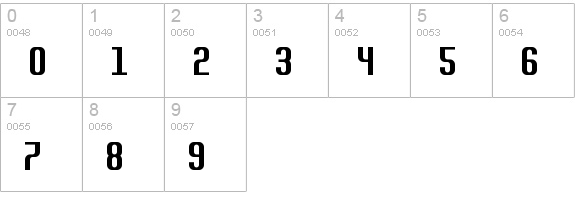
Rvaturecu Regular Font Details
Rvaturecu Regular is the standard, neutral variant in the Rvaturecu typeface family \xE2\x80\x94 well suited to general body text, paragraphs, and standard typographic work.
Rvaturecu Regular font is a versatile and modern typeface that exudes sophistication and elegance. With its clean lines and balanced proportions, this font is perfect for a wide range of design projects, from branding to editorial design. The sleek and contemporary look of Rvaturecu Regular makes it ideal for creating professional and eye-catching designs. One of the best features of Rvaturecu Regular font is that it is completely free to download. You can easily access this stunning font at FontsMarket.com, where you can download it and start using it in your projects right away. Whether you are working on a website, print materials, or any other design project, Rvaturecu Regular font will elevate your work and help you achieve a polished and refined look. Don't miss out on the opportunity to enhance your designs with the sleek and stylish Rvaturecu Regular font. Download it for free today at FontsMarket.com and take your projects to the next level.